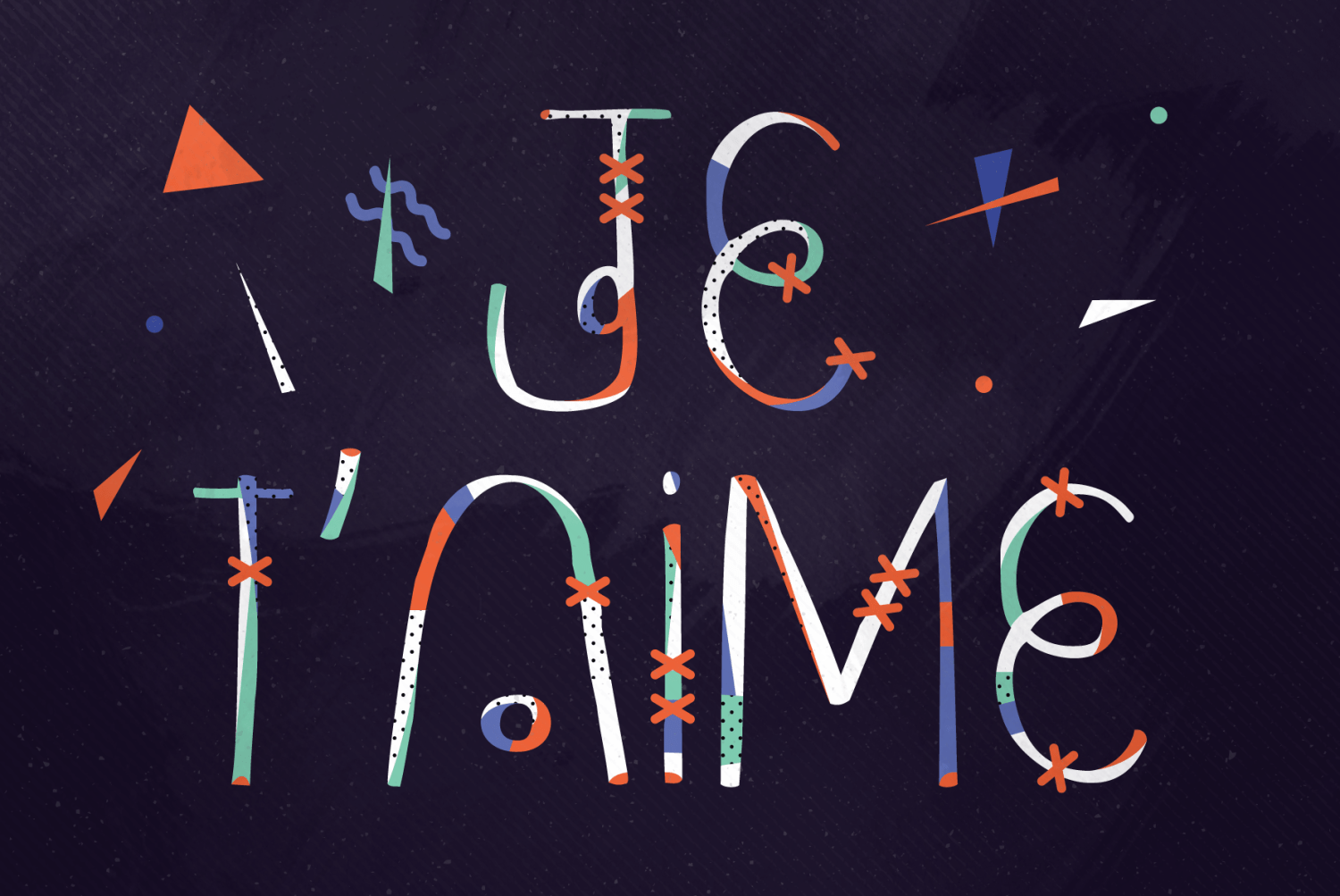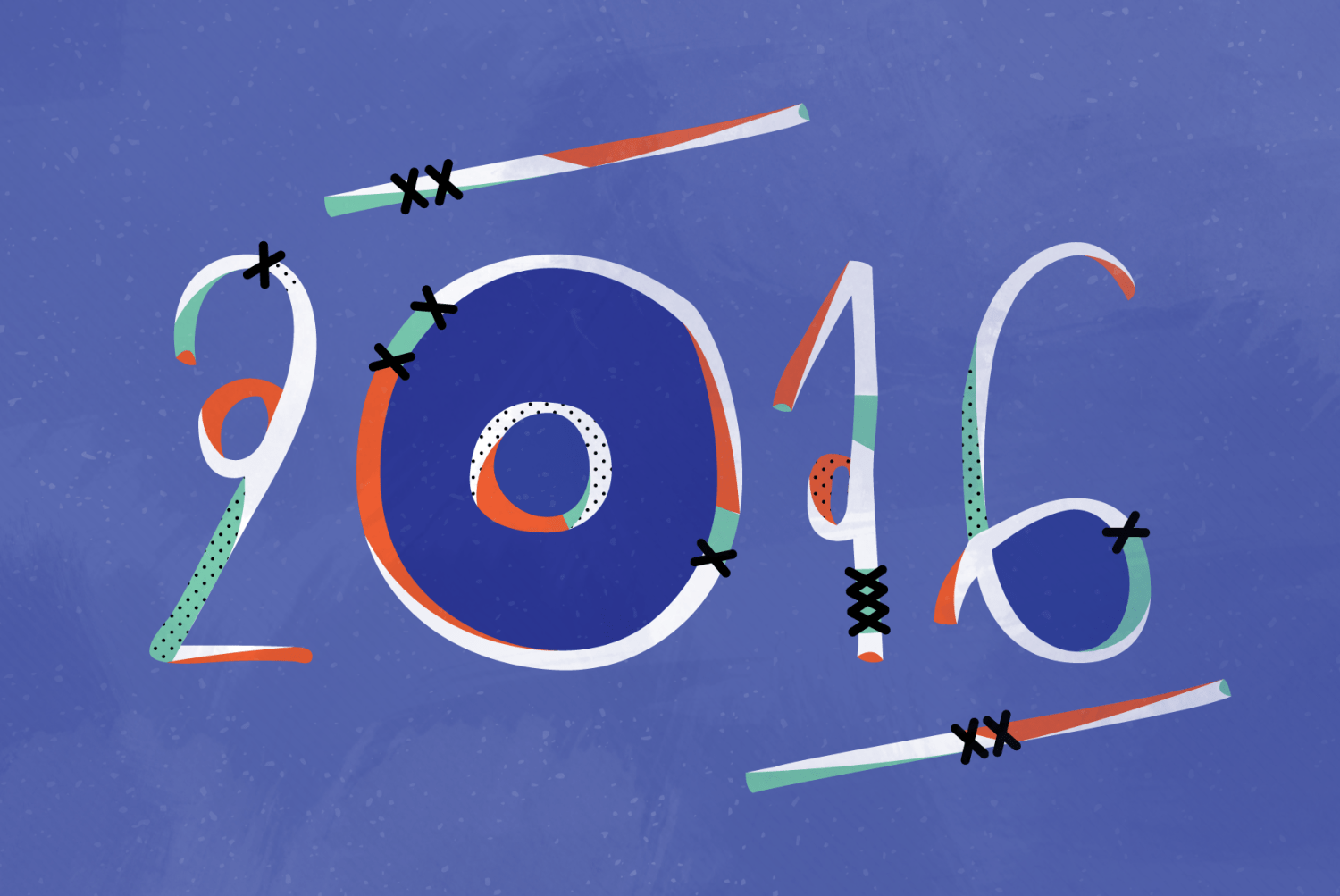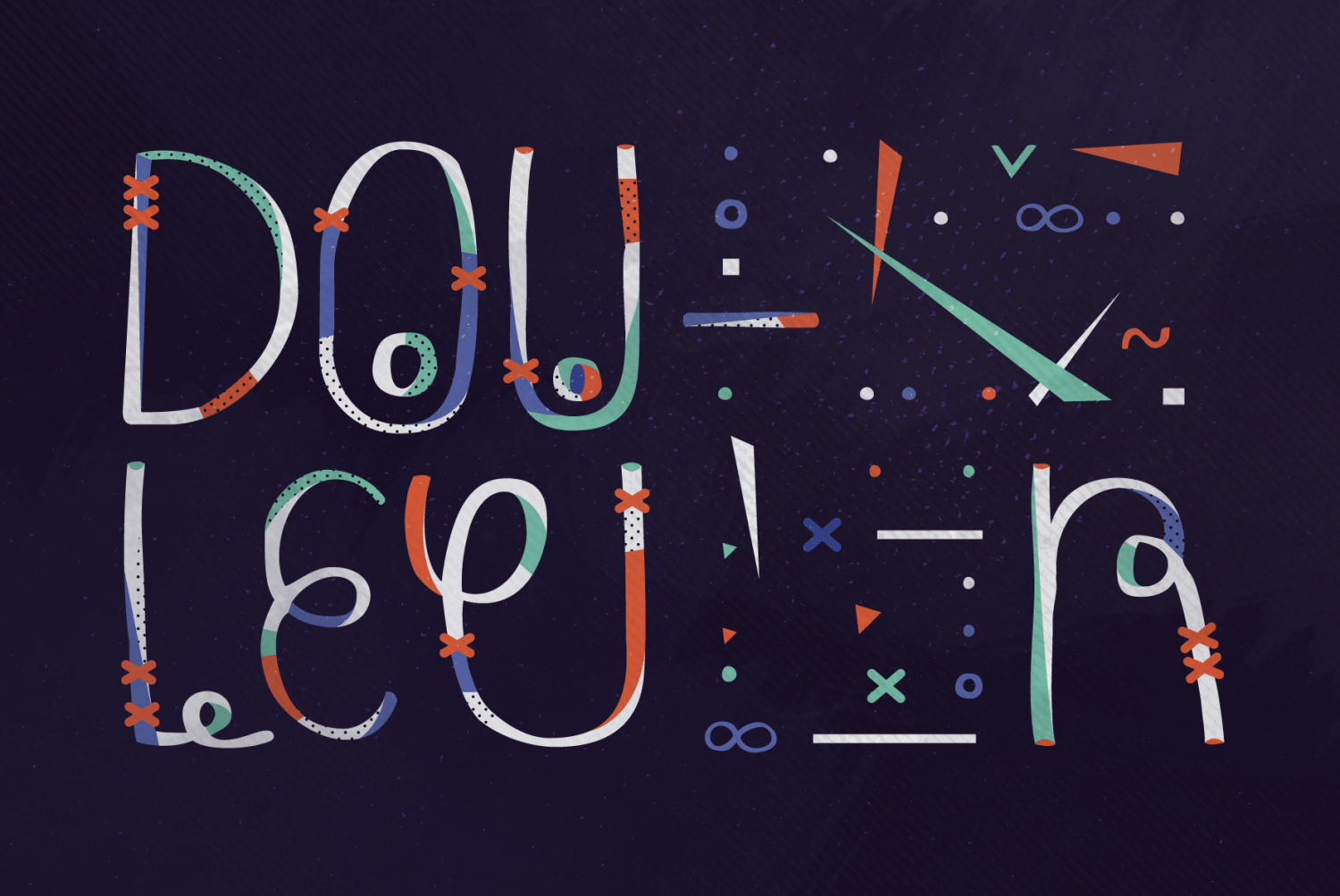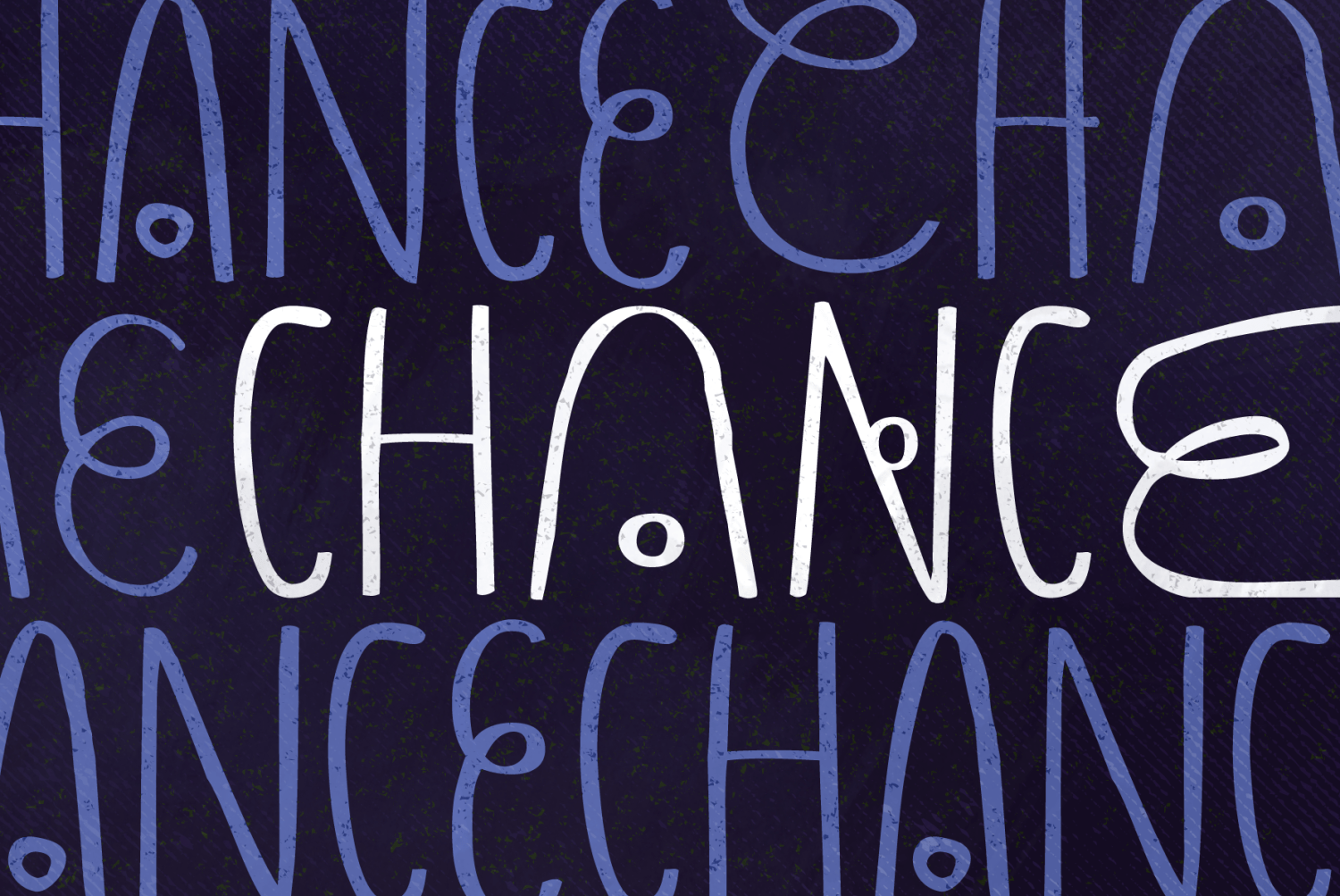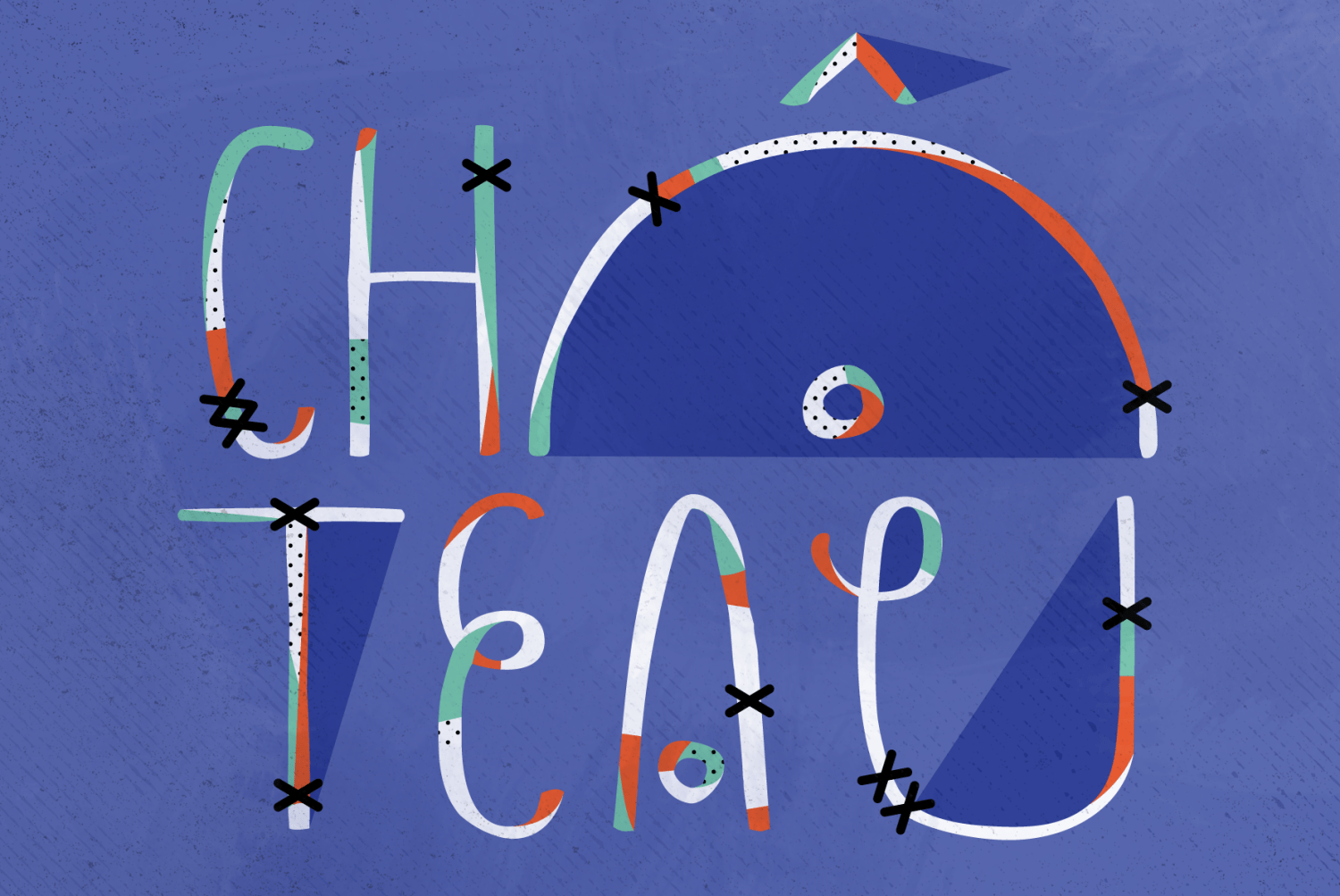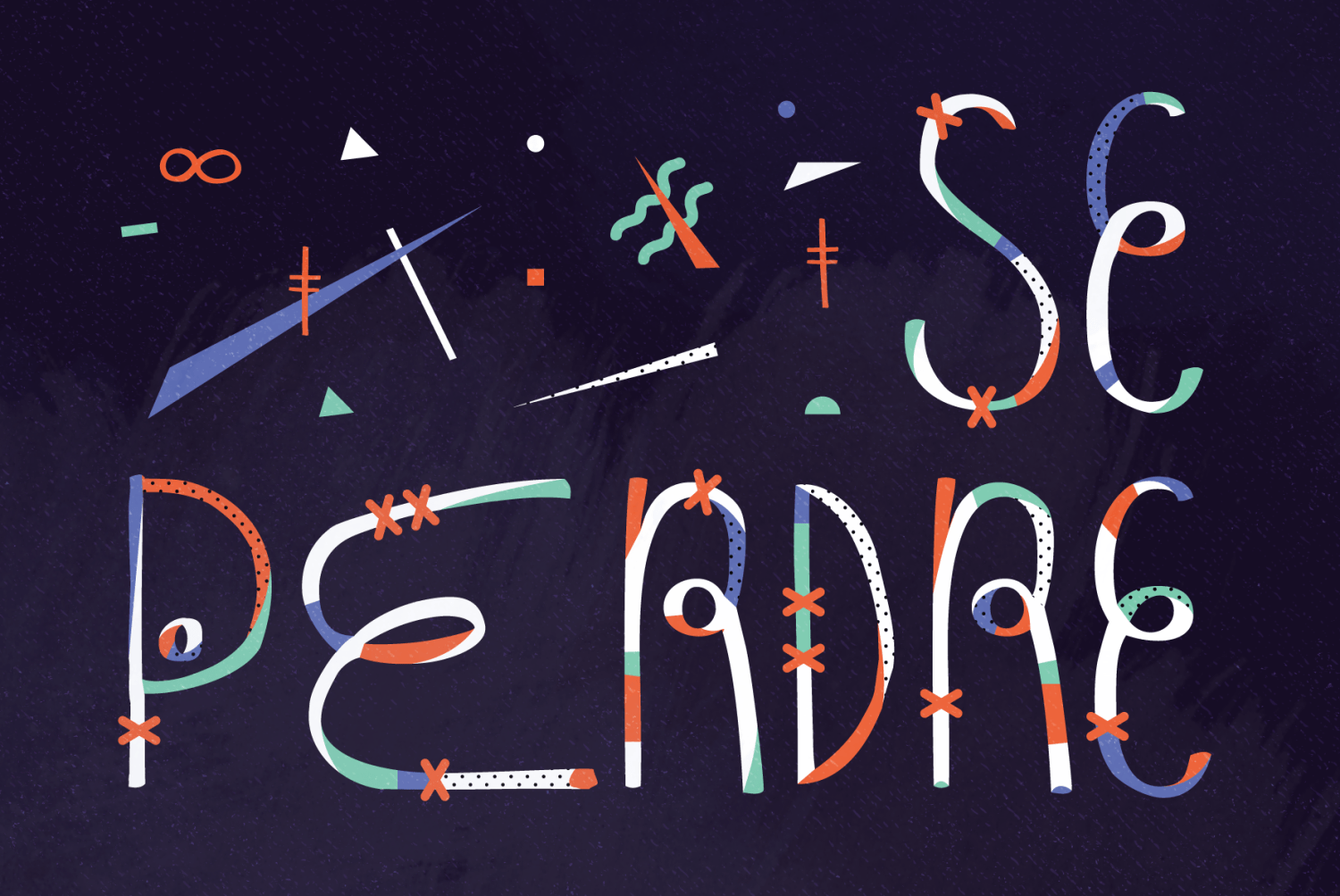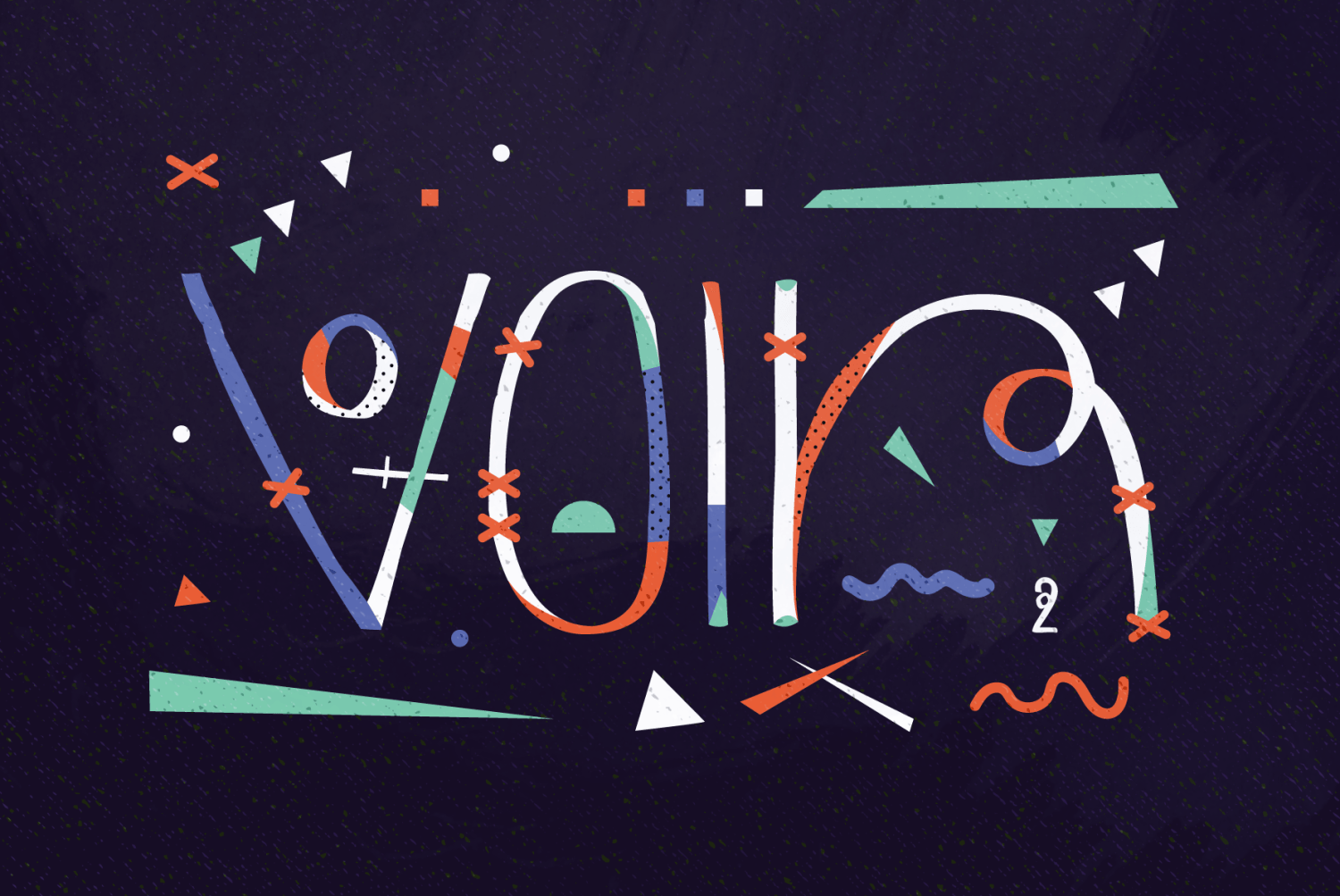
YWFT Chance
Font Family by YouWorkForThem
A little pudgy, a little loopy, and perfect for bringing that home-spun, hand-drawn flavor that everybody loves, here comes YWFT Chance, bringing artisanal whiskey to the party with a dash of hot sauce. Perfect for a party flyer, a menu, or signage of all types where some attention to personal detail is needed.